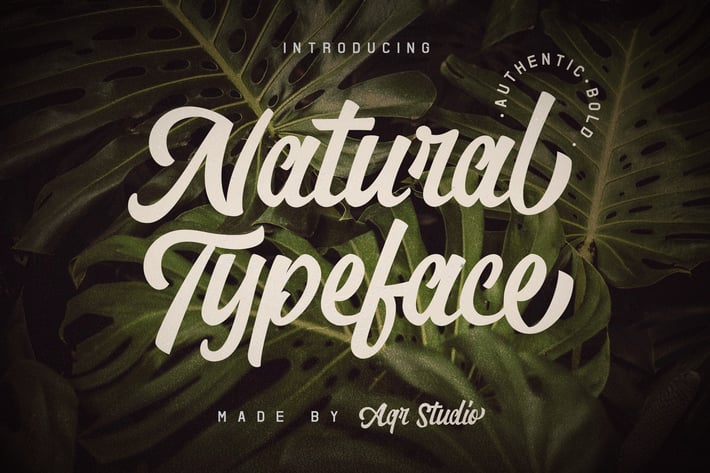
Natural Typeface
Natural Typeface that contains a lowercase, uppercase, symbol, and also support multi-language. There’s a lot of ligature in this font. Natural Typeface also comes with ligatures, stylistic alternates and many more. this font suitable for fashion, branding, catalog and other design what you want.